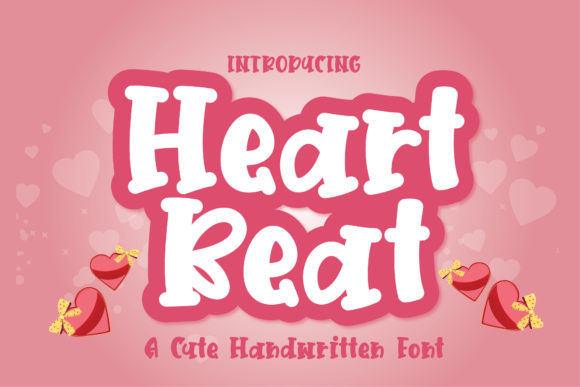
Prepare yourself to fall in love with Heart Beat Font, the display font that oozes cuteness, flexibility, and a touch of whimsy. Its organic and one-of-a-kind style effortlessly blends with a myriad of designs, inviting you on a creative journey filled with endless possibilities.
With Heart Beat Font, your headlines will come alive, pulsating with an irresistible charm that will leave your audience spellbound. Its carefully crafted glyphs dance harmoniously, creating a visual symphony that captivates and enchants. Whether you're crafting logos, posters, social media graphics, or website banners, this font is poised to make an impact, leaving a lasting impression that lingers in the minds of all who behold it.
Immerse yourself in the world of Heart Beat Font, where creativity knows no bounds. Its playful nature lends itself perfectly to projects that demand a lighthearted and whimsical touch, while its inherent flexibility allows it to adapt seamlessly to a variety of design aesthetics. From playful branding concepts to enchanting invitations, this font has the power to transform your designs into captivating works of art.
At the helm of this typographic masterpiece is GoodMoodType, a foundry renowned for their exceptional craftsmanship and unwavering commitment to creating fonts that inspire and empower designers worldwide. Their passion for excellence shines through in every curve and stroke of Heart Beat Font, ensuring that your designs will exude a level of professionalism and polish that sets them apart from the ordinary.
Step into the realm of Heart Beat Font and unlock a world of limitless creative possibilities. Embrace its versatility and let your imagination run wild, knowing that with this font as your ally, your designs will resonate with audiences, leaving an indelible mark on their hearts and minds.